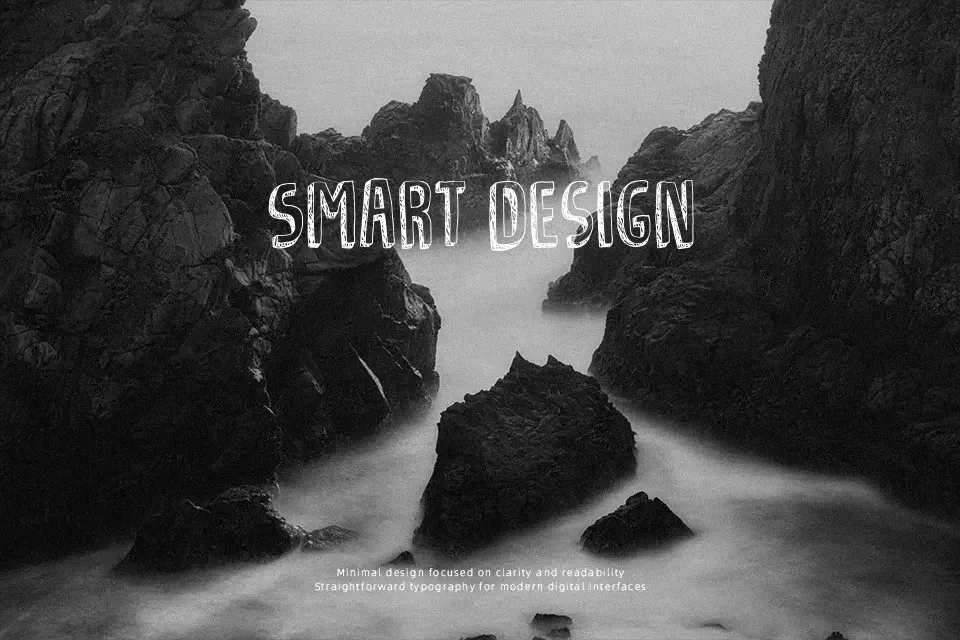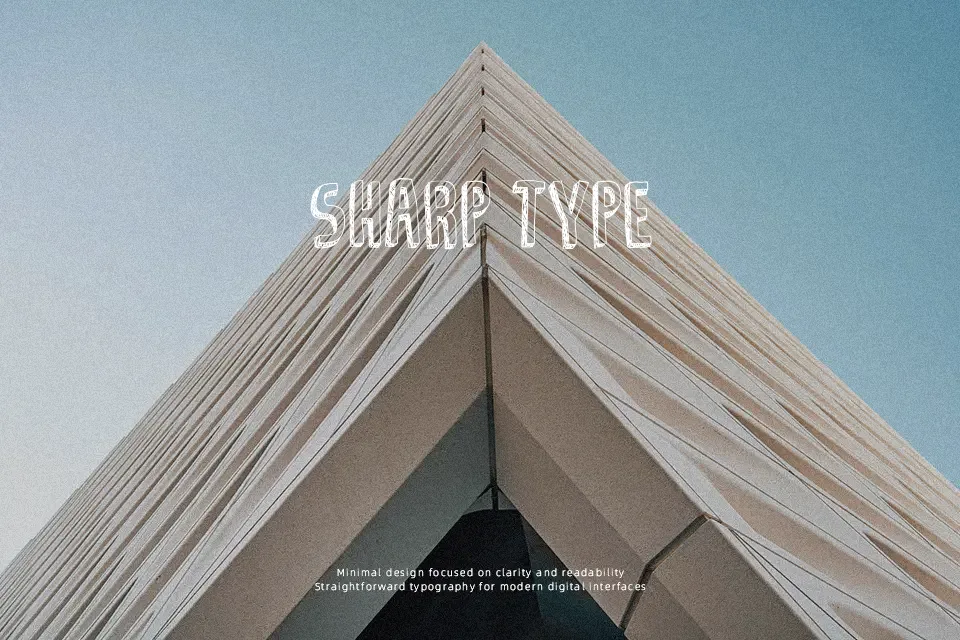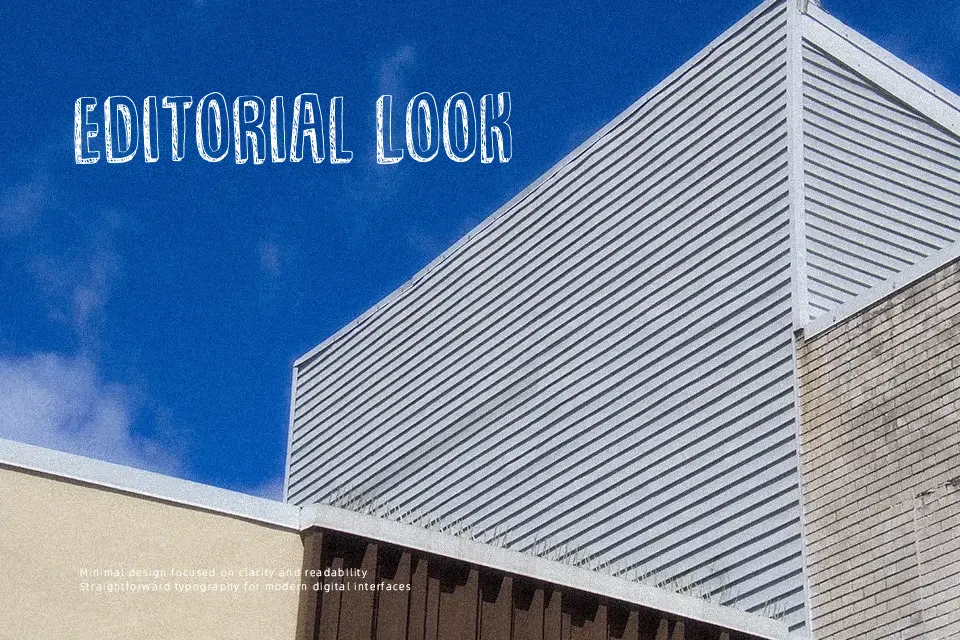
Tradizional Font
Featuring irregular organic strokes and pronounced shadow offsets, Tradizional Font delivers an energetic display treatment grounded in hand-drawn lettering traditions. The design relies on uneven stroke widths and rounded corners to produce an animated visual cadence across uppercase arrangements. Proportions lean slightly condensed, while generous spacing prevents adjacent glyphs from colliding despite their prominent decorative extrusions. Readability remains dependable at medium to large scale, making the typeface well suited for restaurant menu titles, merchandise graphics, and festival posters. However, the heavy dimensional shadows compromise clarity in compact settings, making the letterforms unsuited for continuous body text or dense layout work.
Best For: casual food packaging labels, restaurant chalkboard signage, event poster headlines
Not Ideal For: long paragraph text, small interface labels, dense editorial layouts
Perfect for headline, logo, and packaging, with a creative and decorative style.